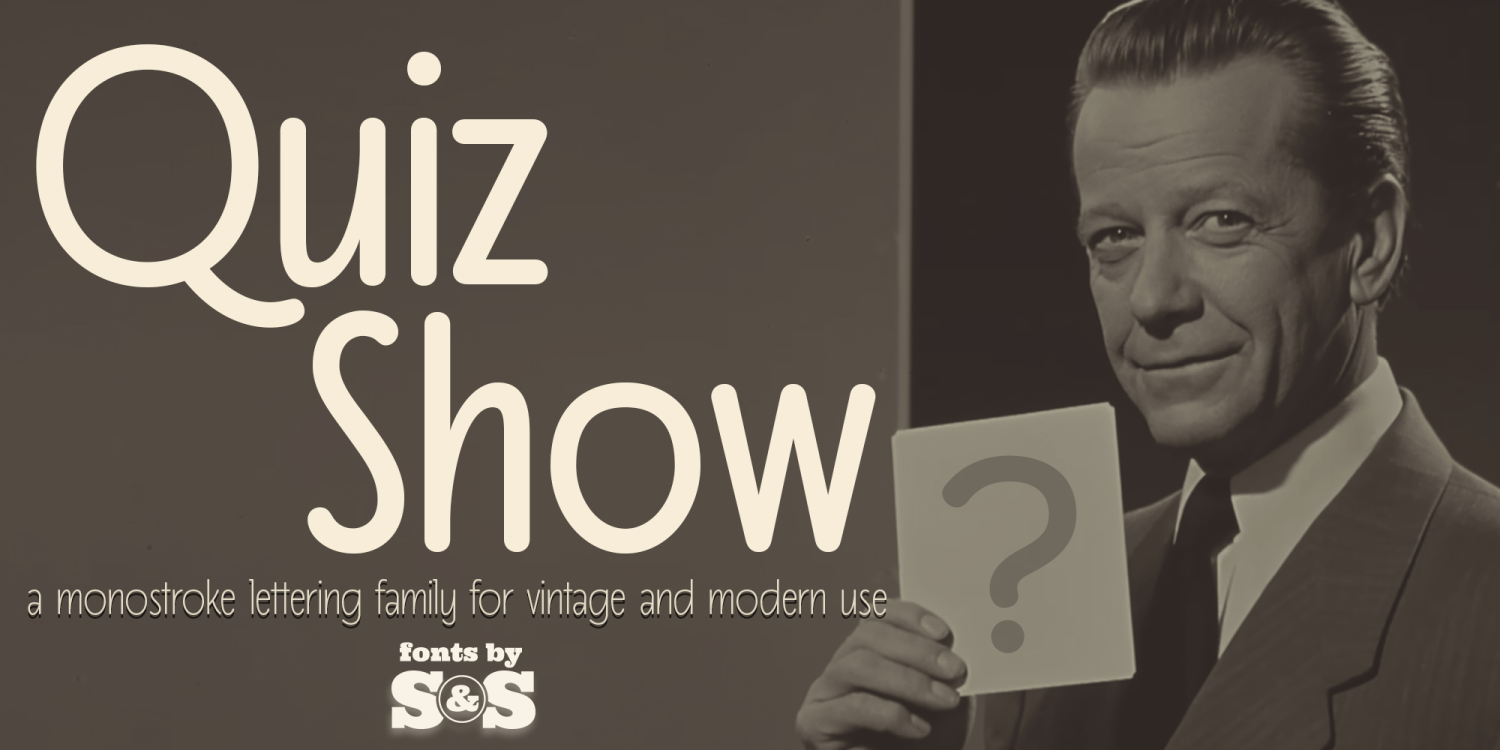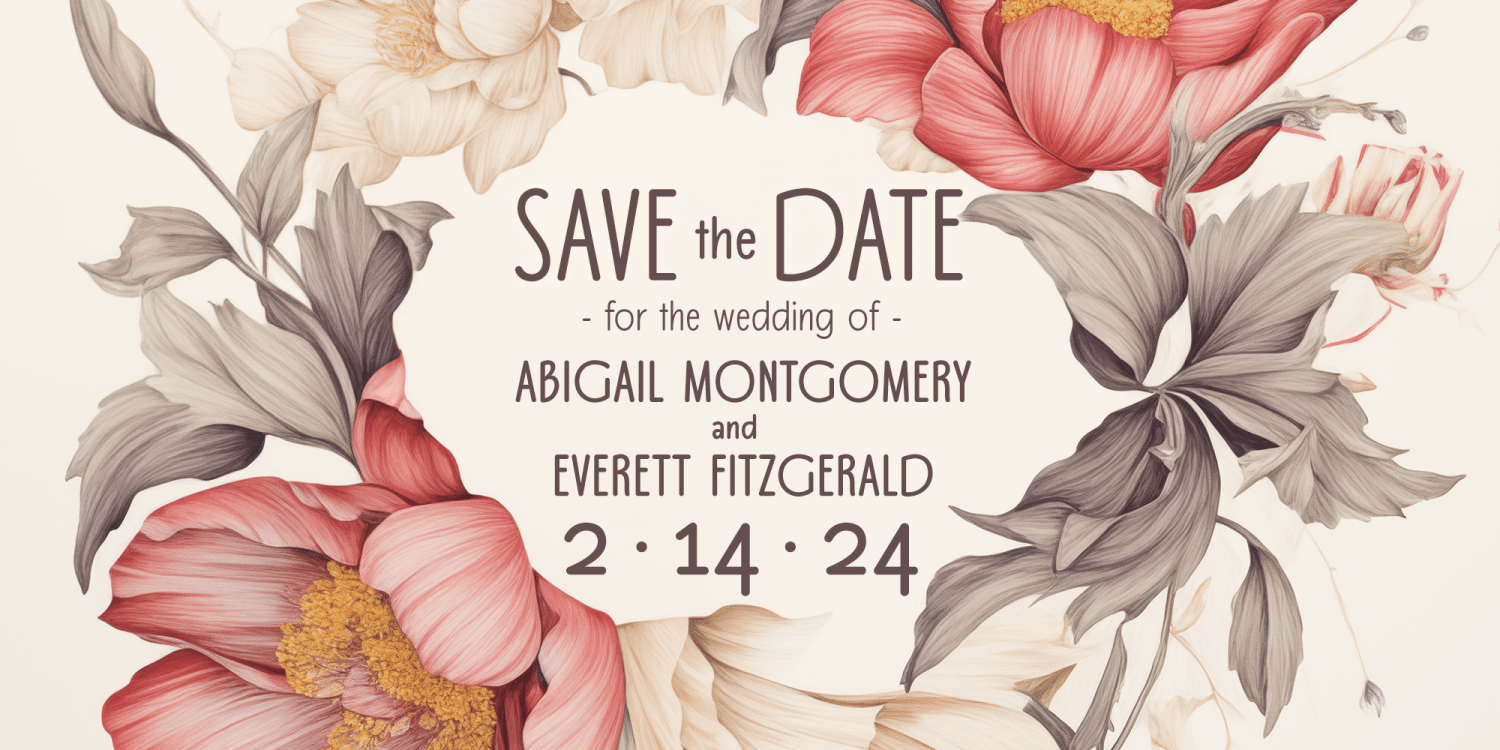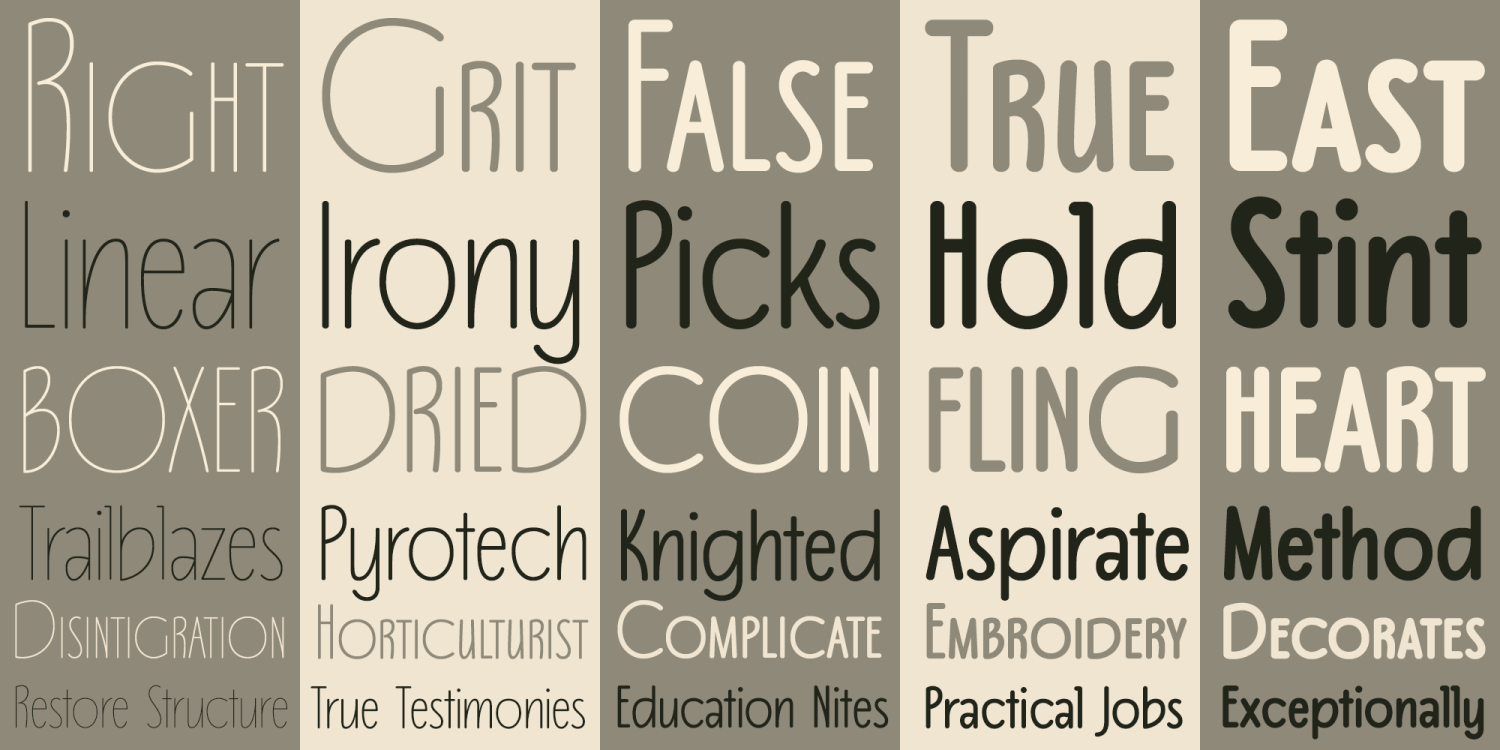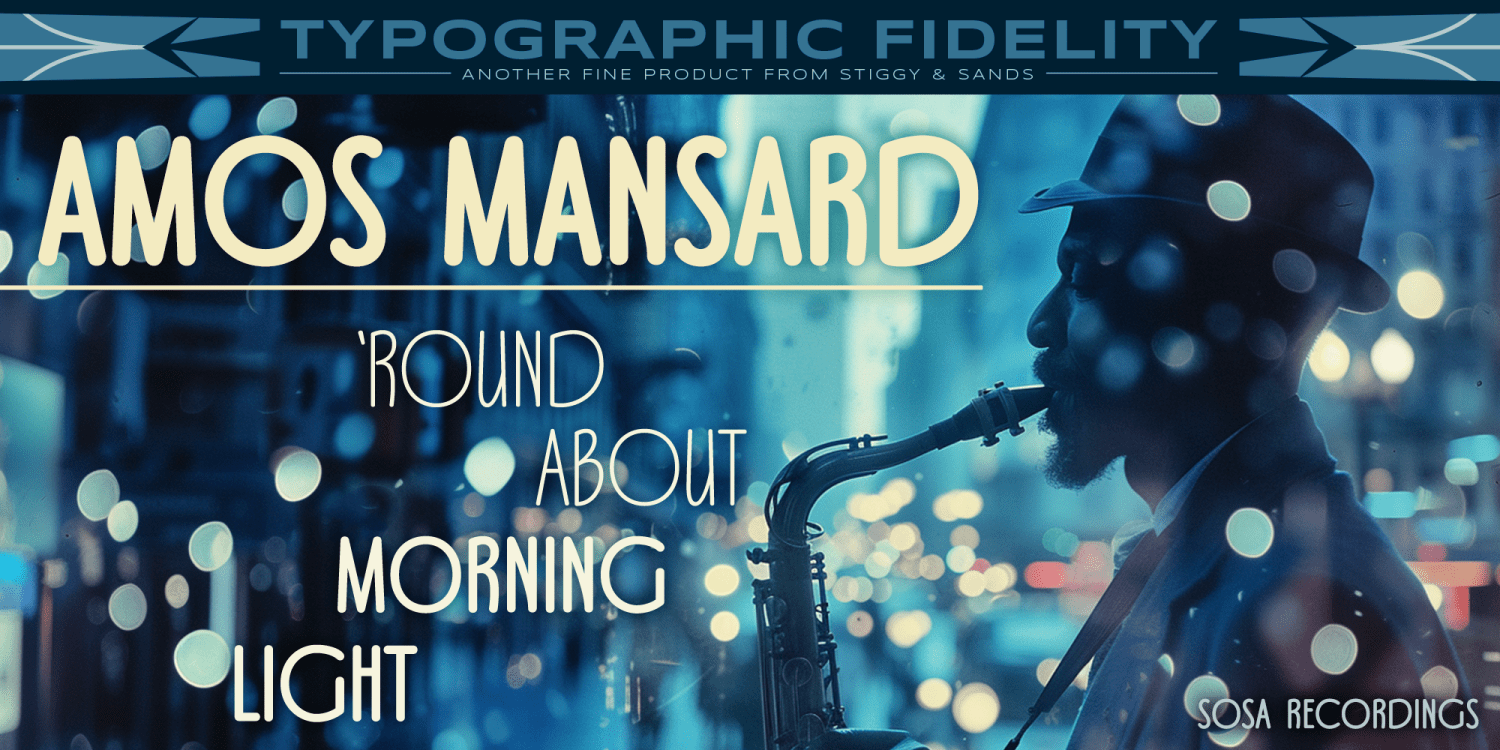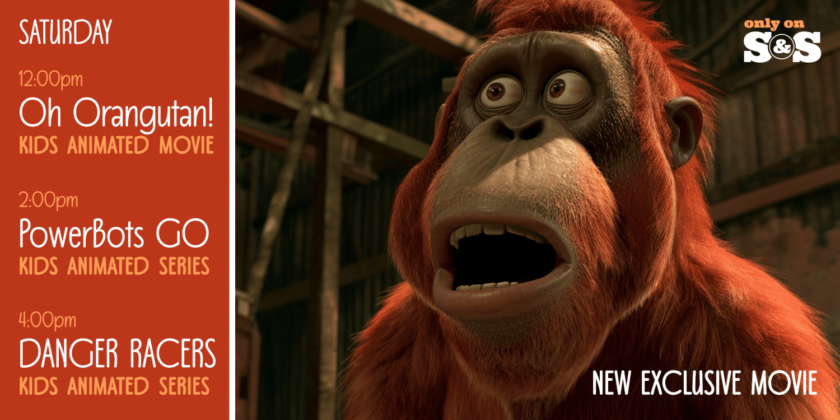
About Quiz Show
Quiz Show takes its inspiration from refined hand lettering with elegant art deco nods in the letterforms. A tall x-height brings a friendly and welcoming feel. It's a font family that can be used for utilitarian purposes like architectural drafts…